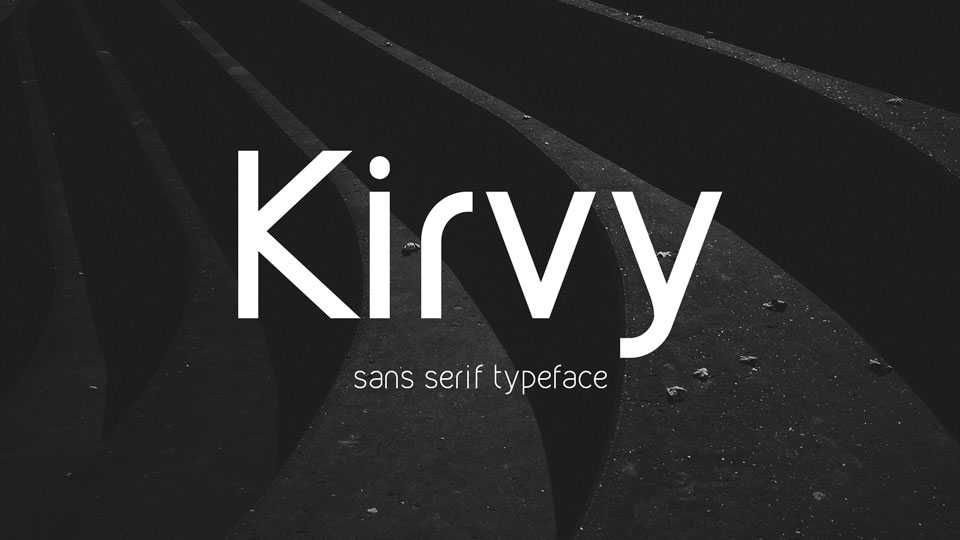
Download Kirvy font family, a modern sans serif typeface in four weights. Perfectly suits for headlines as well as texts, branding, merchandise and much more.
Designer: Youssef Habchi